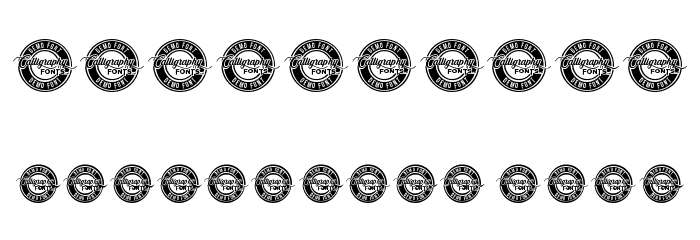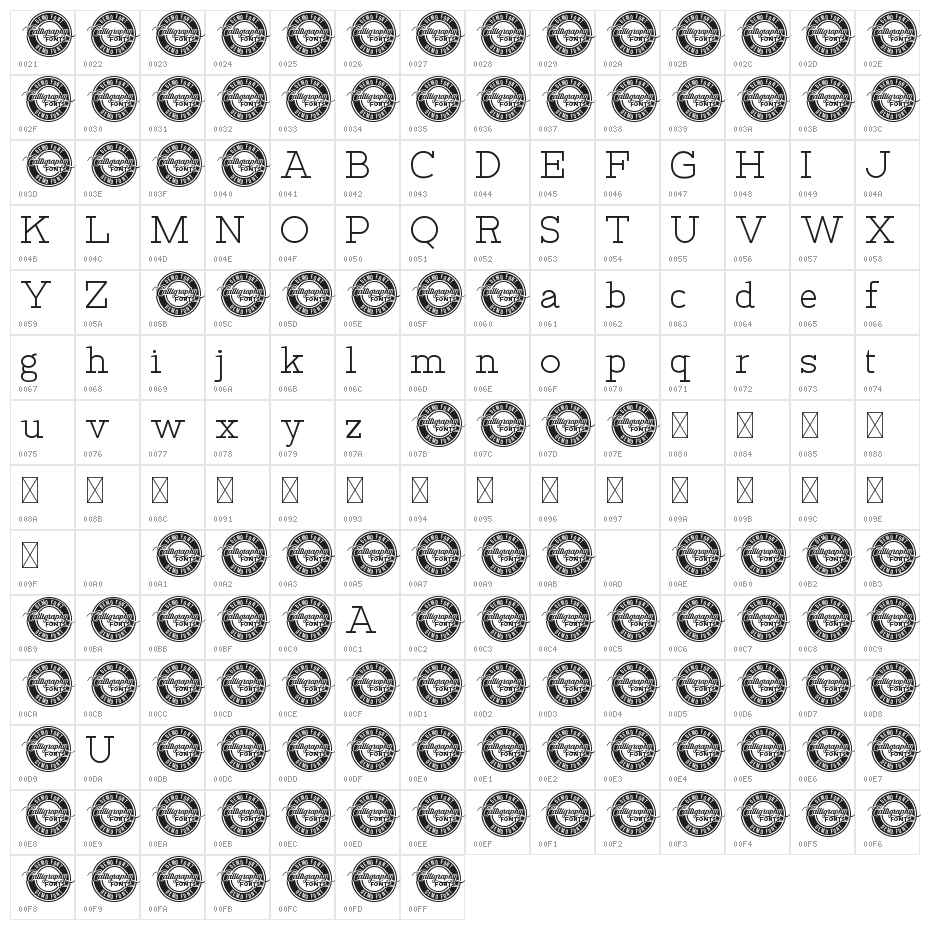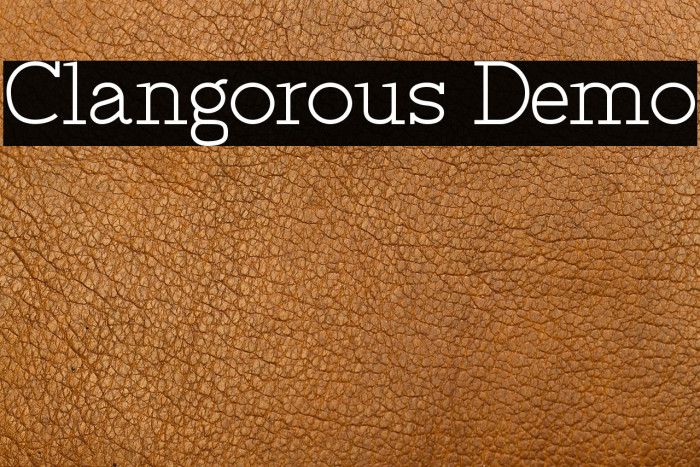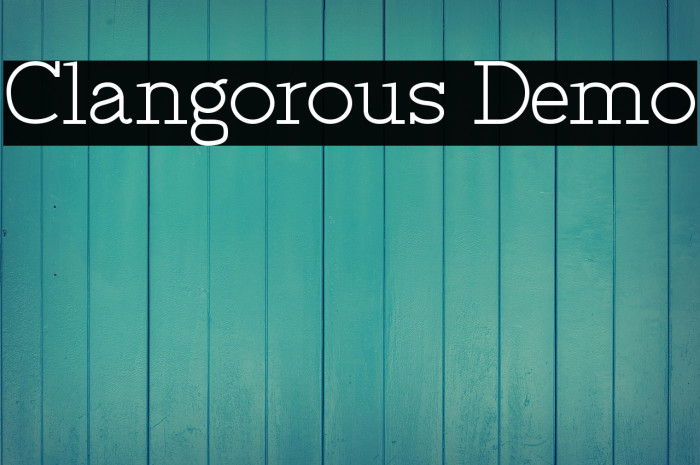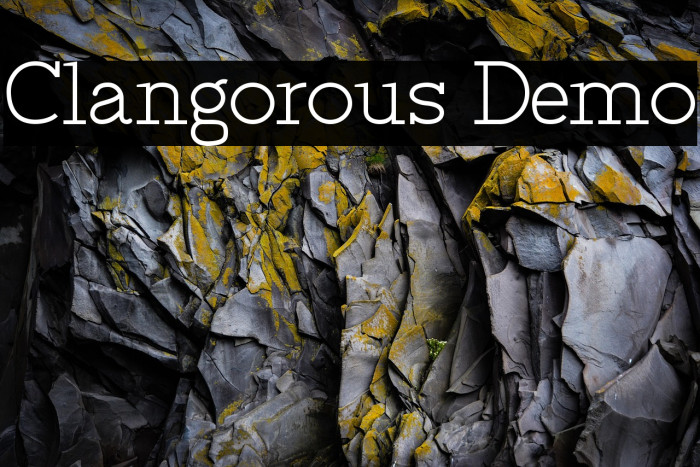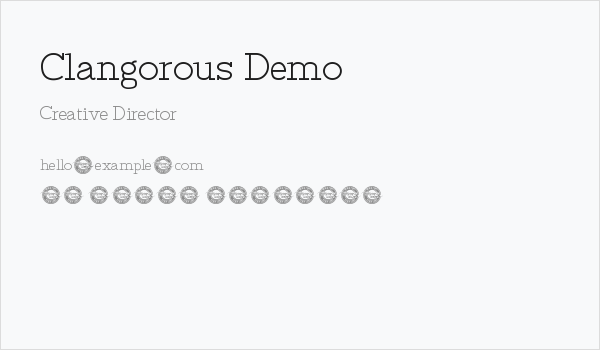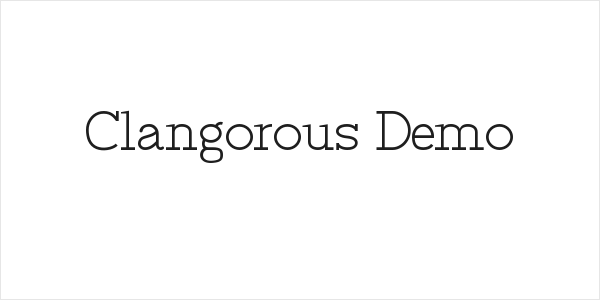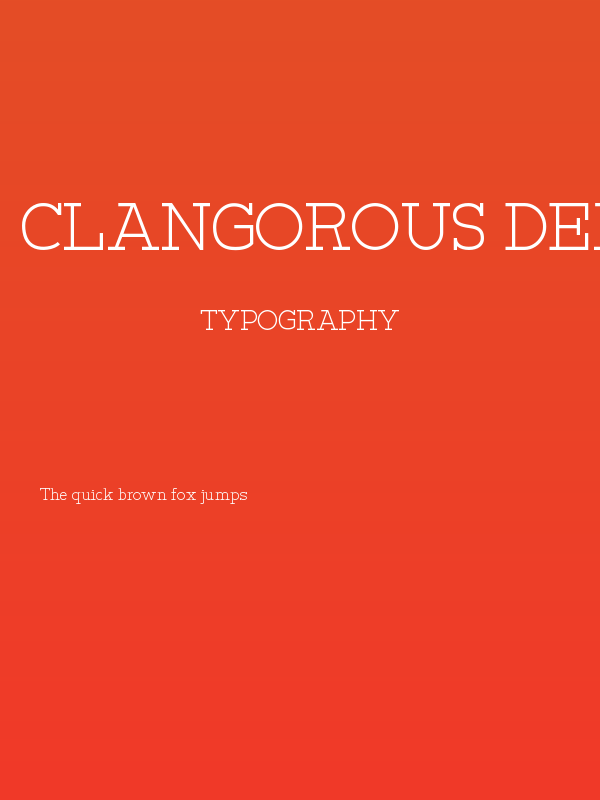
Clangorous Demo Font
Clangorous Demo Description
This font features a clean and modern serif style with a classic touch. The uppercase letters are bold and structured, providing a strong presence, while the lowercase letters maintain a balanced and harmonious look. The font exhibits a medium contrast in stroke thickness, which enhances readability and adds a touch of elegance. The character spacing is normal, allowing for clear legibility across various sizes. Its overall style is versatile, making it suitable for both contemporary and traditional designs. The font's design is ideal for projects that require a refined and professional appearance.